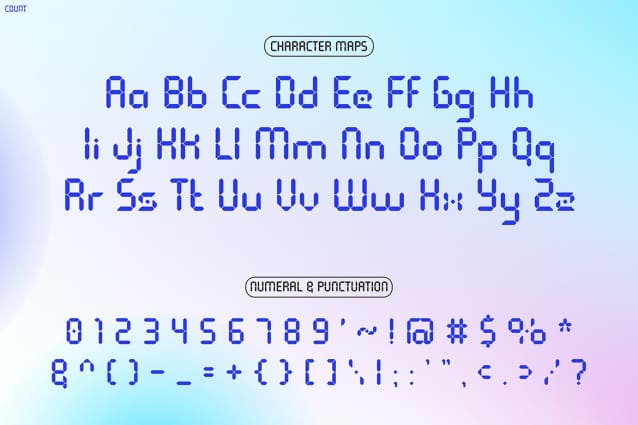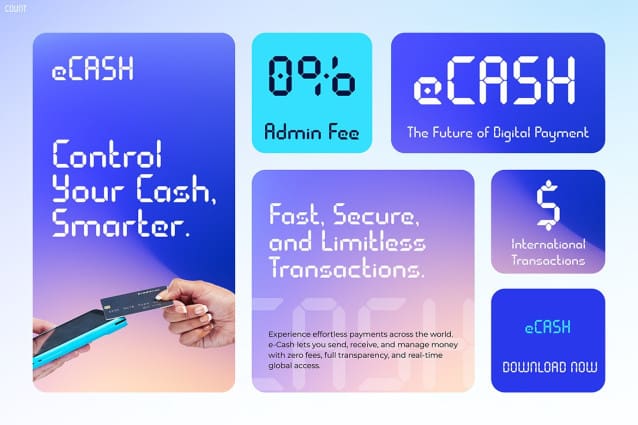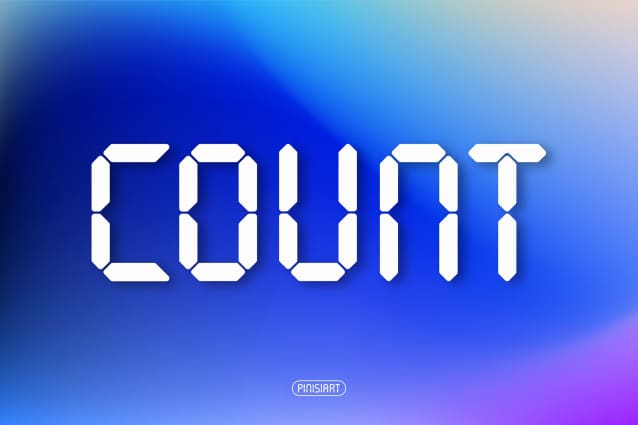
Count Font
Count Font isn’t just a typeface — it’s the voice of tomorrow. Designed with precision and futuristic flair, this font captures the heartbeat of innovation through geometric elegance, modern symmetry, and digital rhythm. Every letter flows with intention, creating a visual language that feels alive. Moreover, its clean LED-inspired forms make it a perfect blend of technology and timeless style.
Inspired by digital clocks, countdown timers, and sci-fi aesthetics, COUNT brings a sense of motion and energy to your design. Its modular shapes and sharp lines reflect speed, clarity, and progress. Therefore, every project you use it for instantly looks more advanced and visionary. Besides, it adapts beautifully to both screen and print, maintaining balance and readability at any size.
Additionally, its sleek tone and confident structure ensure that your work not only looks modern but also feels futuristic in essence. Whether you’re building a brand identity, designing a UI interface, or creating promotional visuals, COUNT will make your message stand out effortlessly.
Futuristic Font COUNT was carefully built for creators who dare to innovate. It’s ideal for tech startups, UI/UX designers, AI developers, digital marketers, and motion graphics artists who want their visuals to speak the language of the future.
Furthermore, this font is perfect for projects in fintech, crypto, artificial intelligence, and smart technology. It shines in app branding, digital campaigns, and sci-fi poster designs. In other words, COUNT helps you translate complex innovation into clear, captivating visual expression.
Moreover, the typeface pairs seamlessly with both minimalist and bold concepts, allowing designers to maintain creativity without sacrificing professionalism. Whether used in titles, logotypes, or futuristic interfaces, it always delivers a striking, memorable impact.
Ultimately, Futuristic Font COUNT is more than design — it’s digital evolution in motion. Because it merges technology with style, it gives your projects a modern pulse that never fades. With its sleek readability and striking visual flow, COUNT empowers brands to look sophisticated, smart, and visionary.